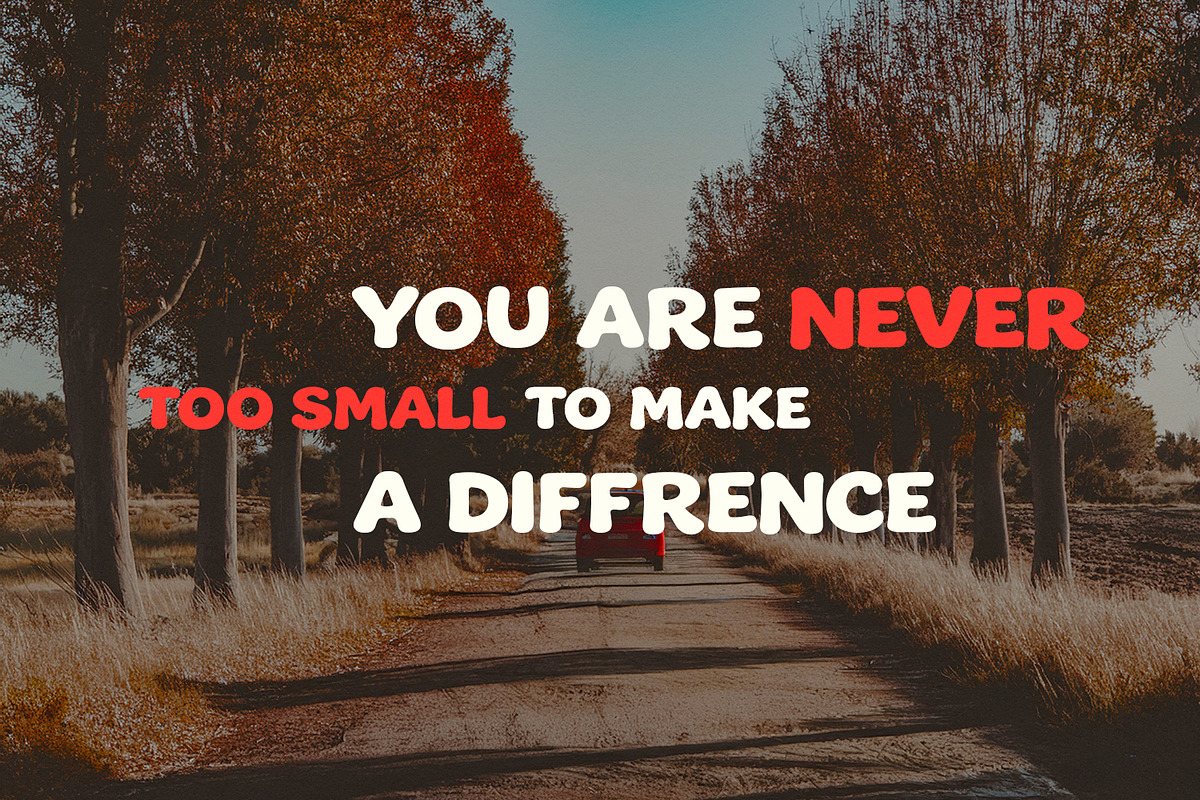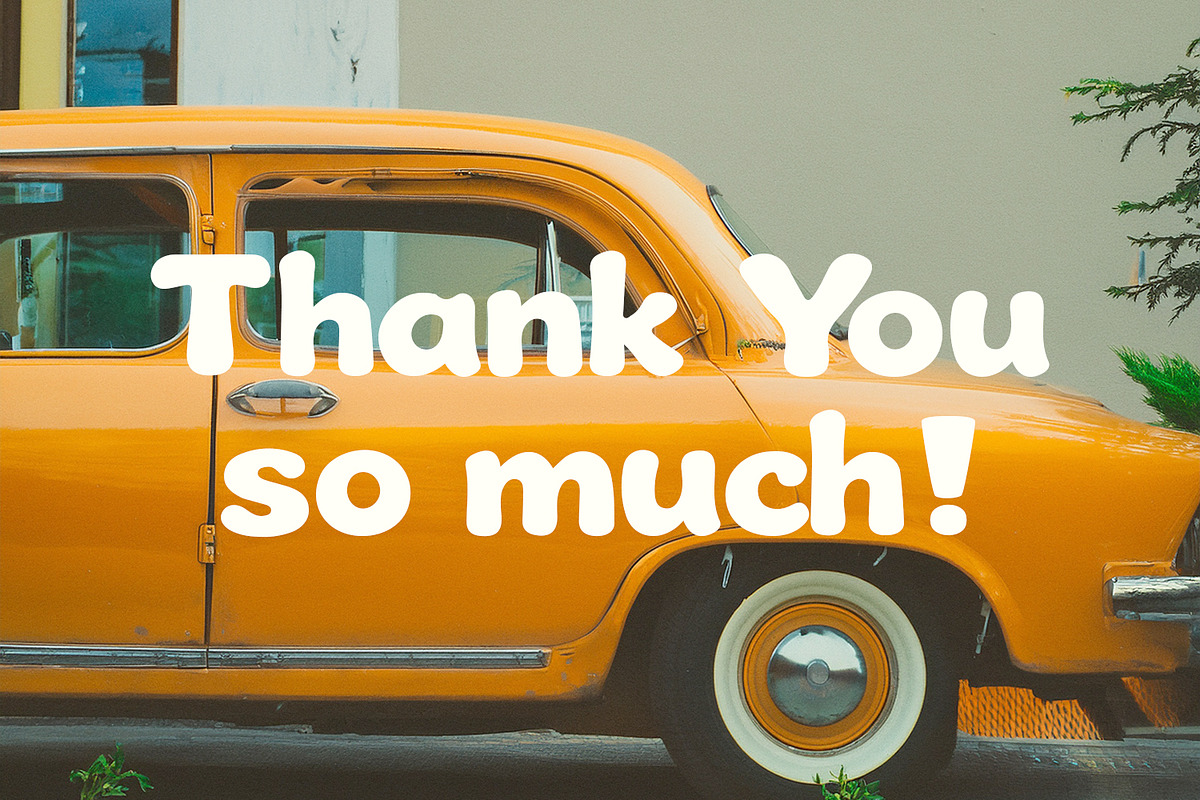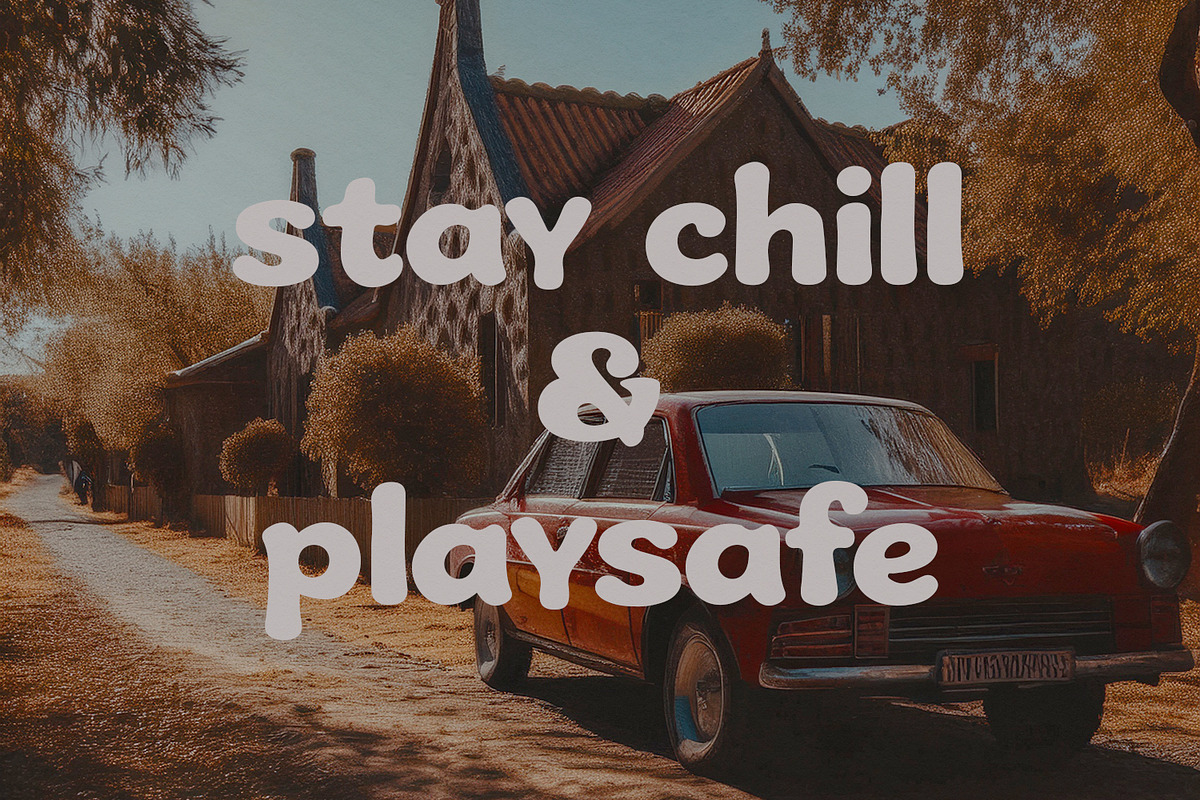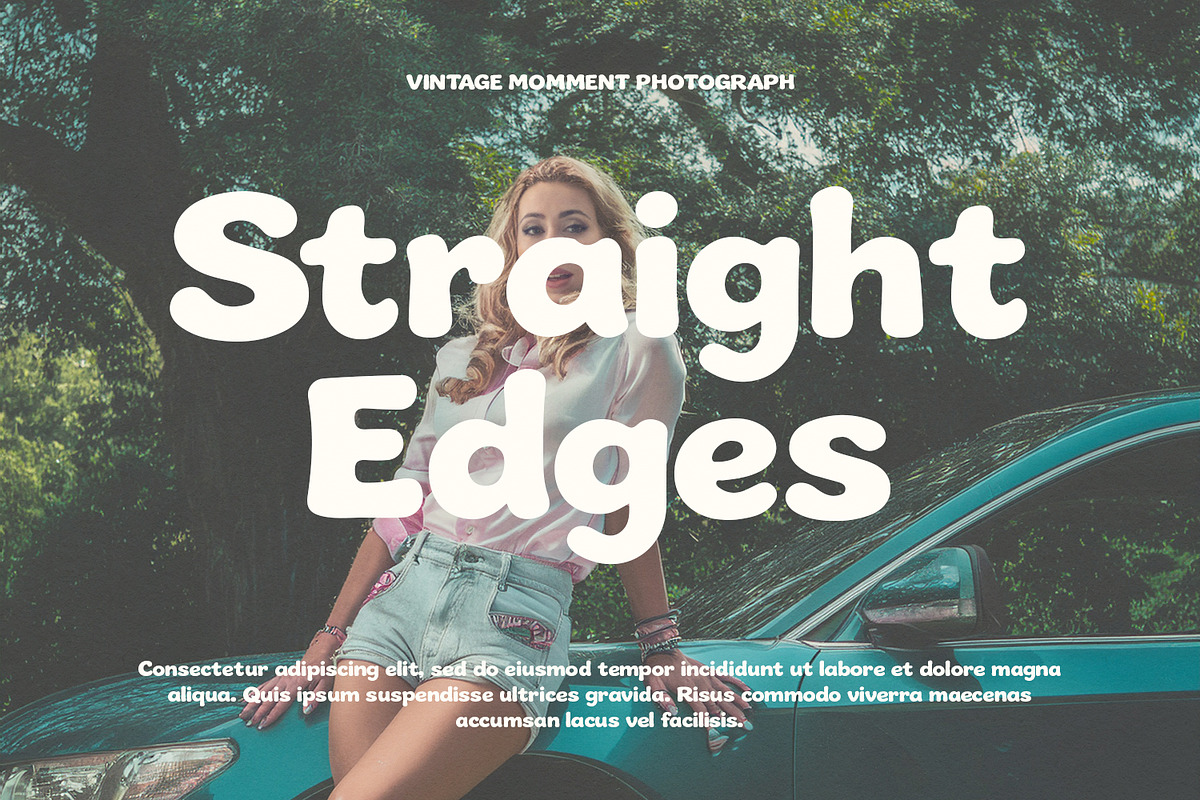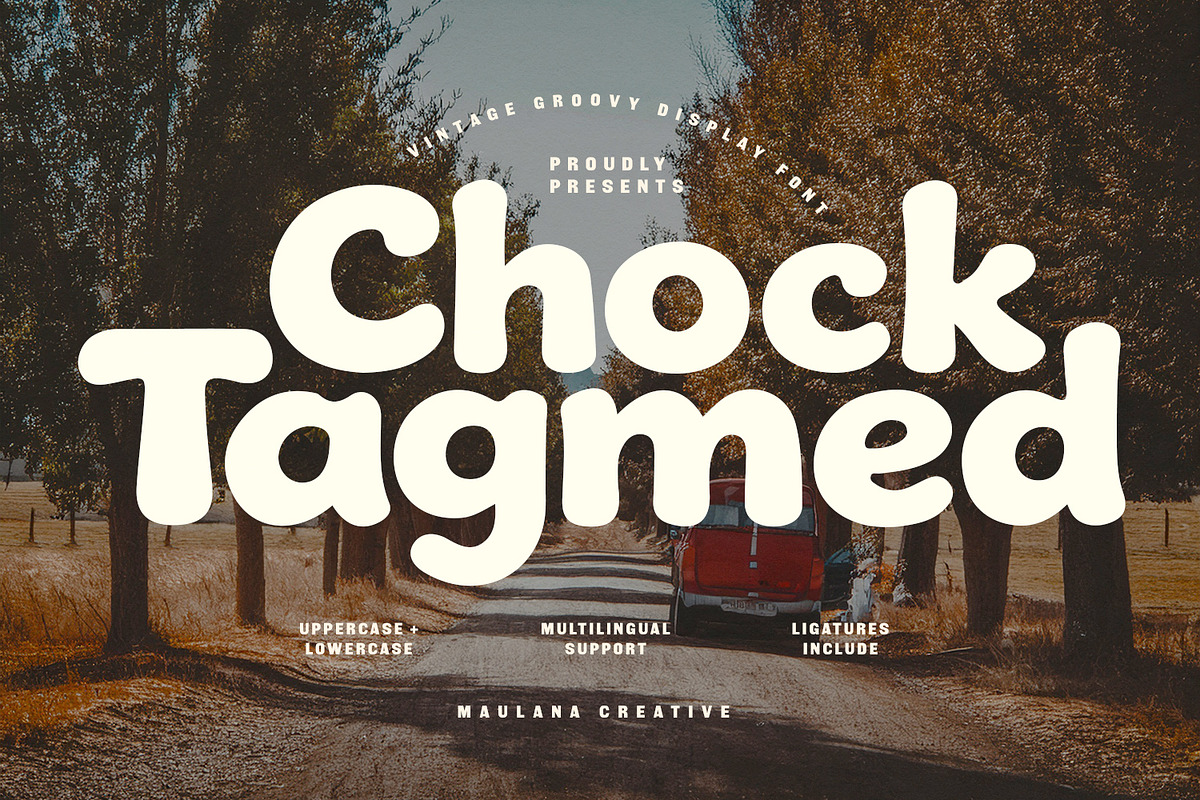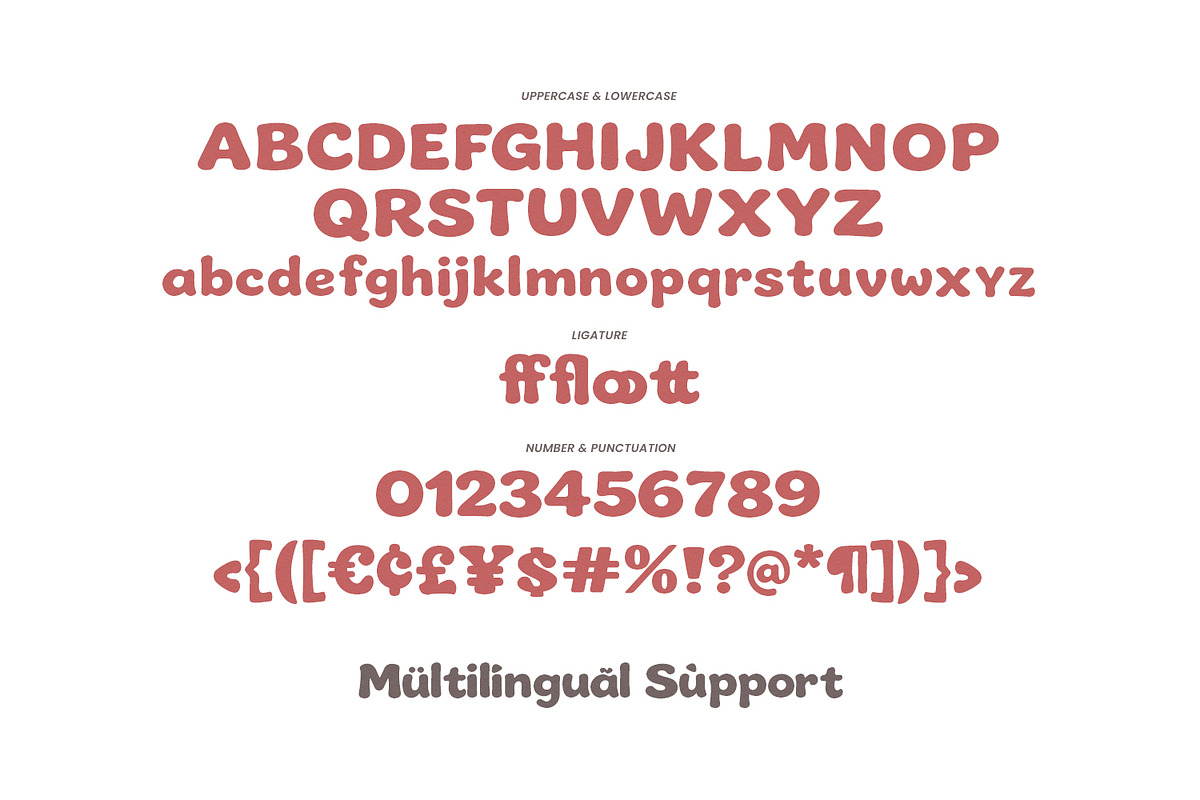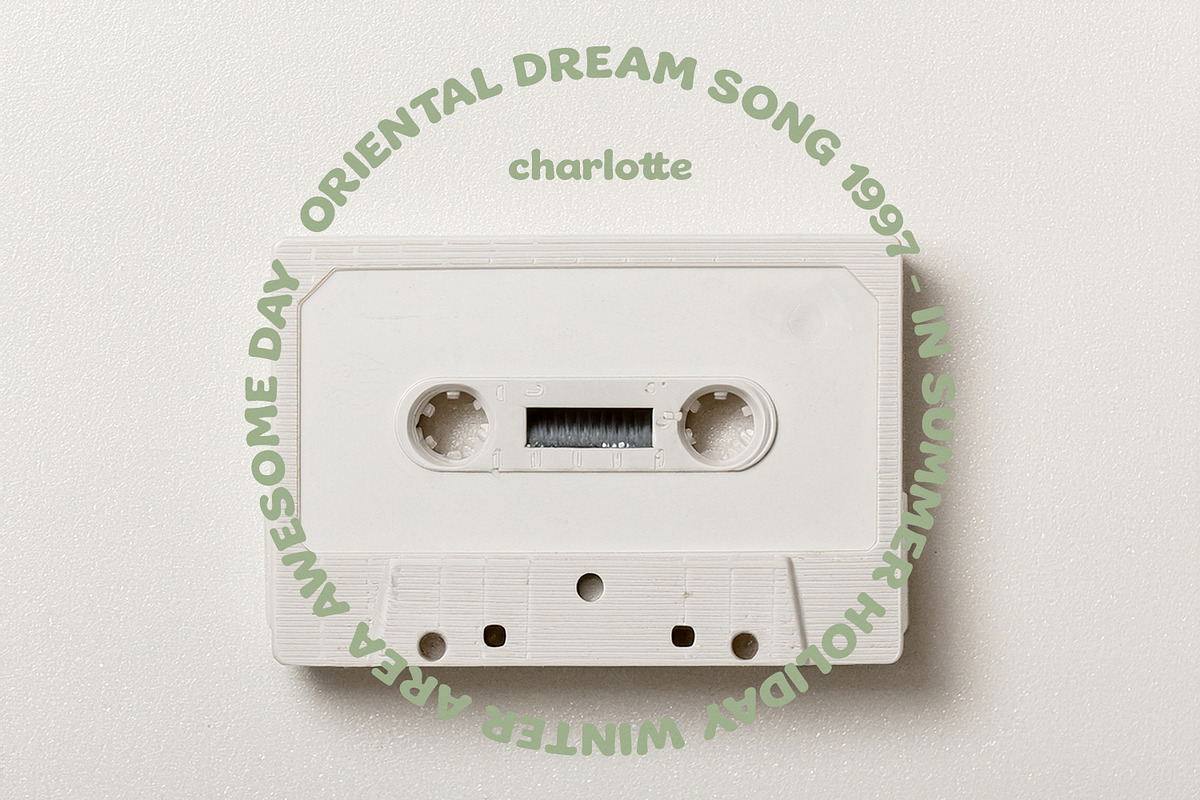
Chock Tagmed Vintage Groovy Display
Chock Tagmed is a bold, playful display font inspired by classic retro design. Featuring soft, rounded edges and a cheerful, organic structure, this typeface captures the essence of 1970s aesthetics. It comes packed with uppercase and lowercase letters, multilingual support, numerals, punctuation, and unique ligatures to elevate any design project. Perfect for eye-catching posters, branding, vintage merchandise, logo designs, book covers, and packaging that require a warm, friendly, and nostalgic touch.
- Ligatures for a natural handwriting flow